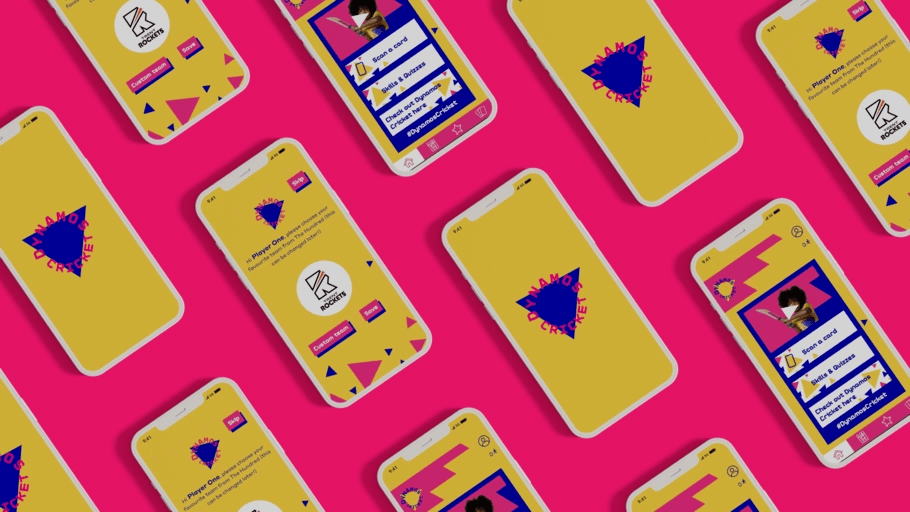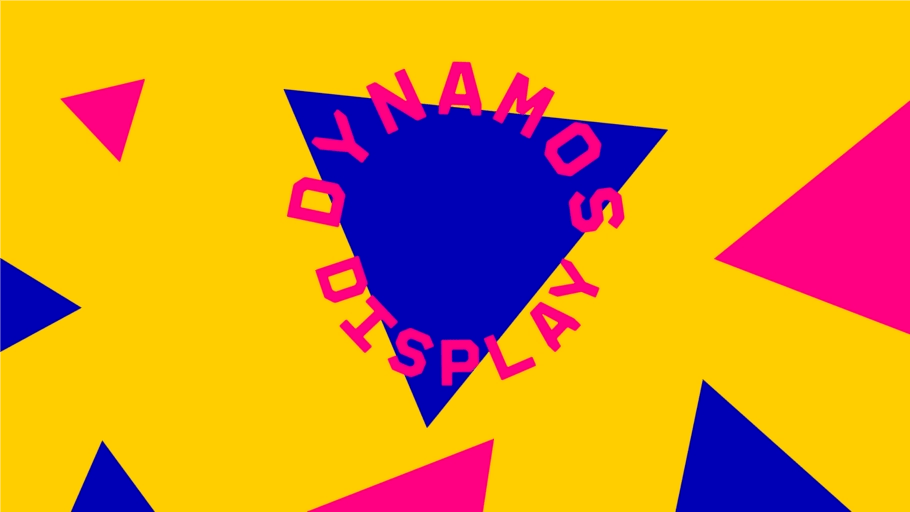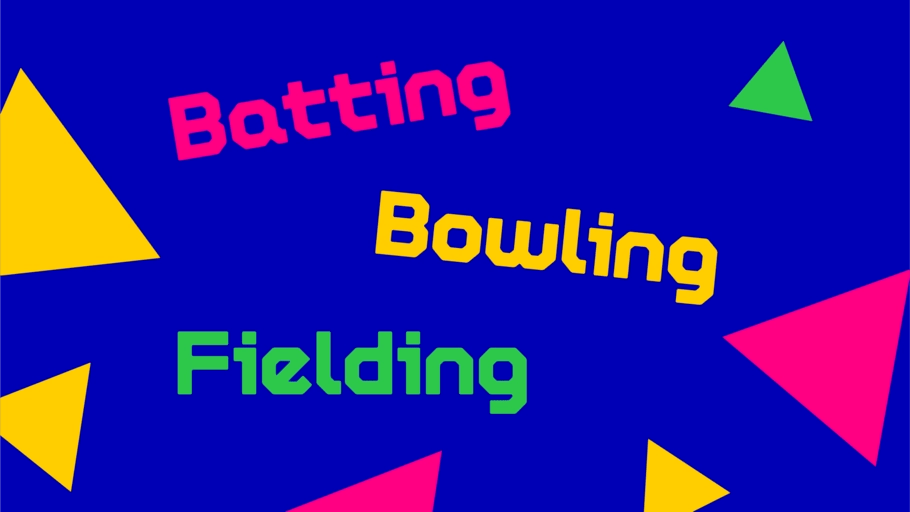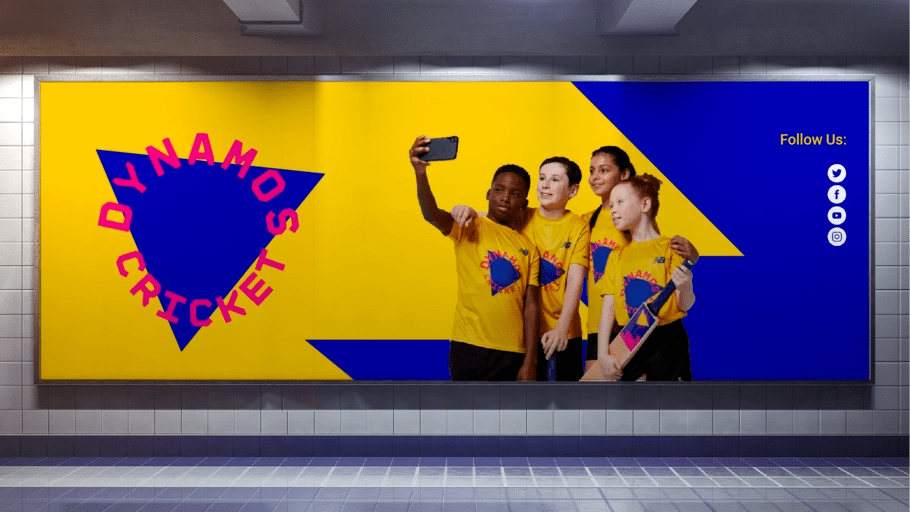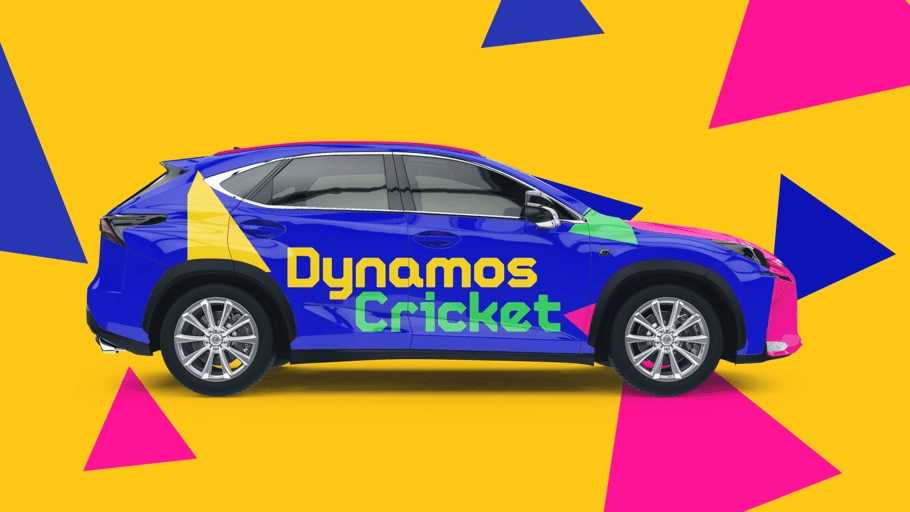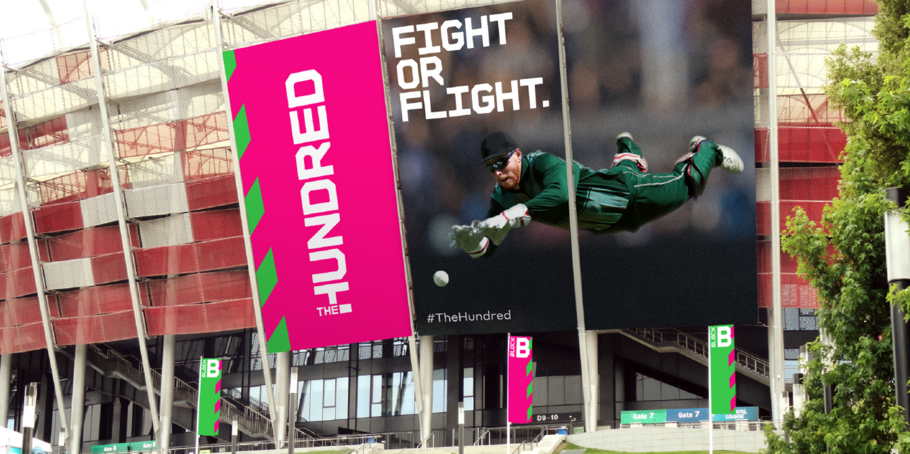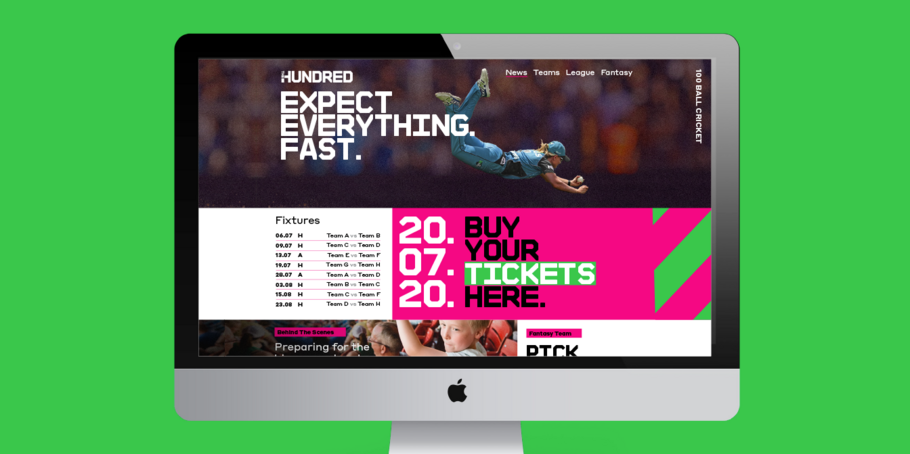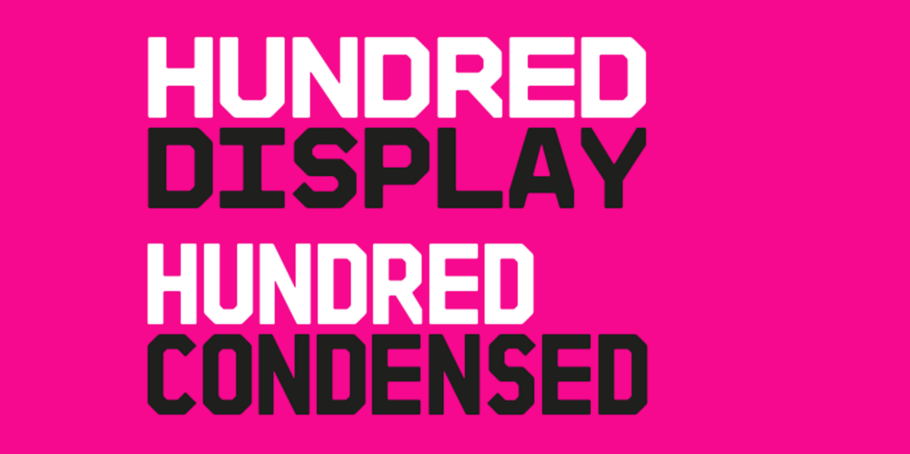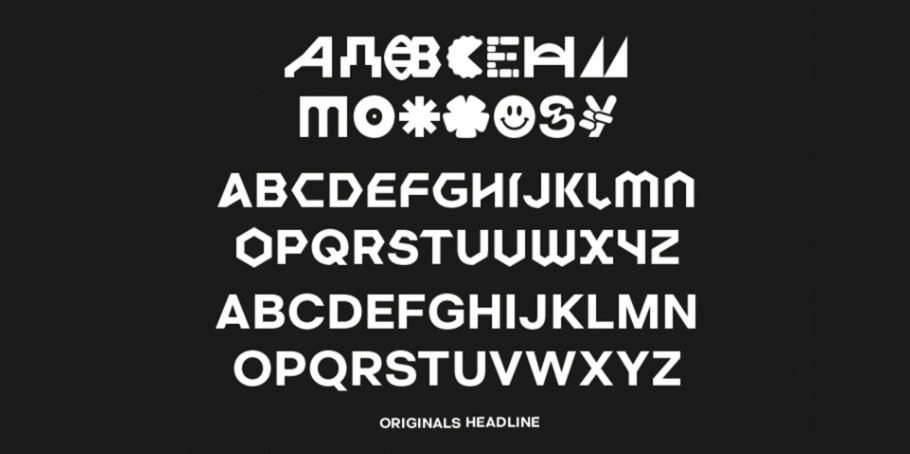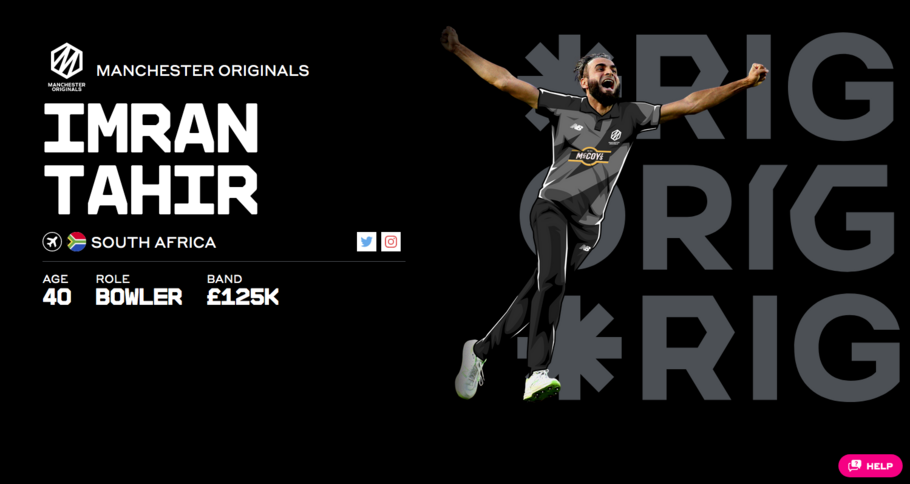
The Hundred - The new brand identity, for the new game.
“ Our aim was to bring a genuinely distinctive tone of voice, one that speaks to a new fanbase and conveys the active, ambitious and daring nature of the Hundred and Dynamos brands. ”
Phil Garnham — Senior Creative Type Director, Monotype Studio.
The England and Wales Cricket Board (ECB) have reimagined Cricket with the introduction of a new competition; ‘The Hundred’. Monotype collaborated with FutureBrand London to create a bold and confident typographic identity aimed at shifting perceptions to attract a wider audience to the game.
The new ‘Hundred’ game format is simple: Eight teams, representing seven cities from around the UK, will compete against each other with 100 balls per team and the team with the most runs wins. The top three teams will compete in the ‘Finals Day’, the matches themselves will be fast paced and full of drama to help cricket reach younger, more diverse audiences with a focus on families.
In early 2018, a small focussed team of designers at FutureBrand London set out to name and create design concepts for the brand identity. As the competitions vibrant colour palette and graphic patterns emerged, it was clear that a strong typographic approach was needed. The fonts would play an important role and needed to stand up and communicate the brands values of fearless energy, optimism, the core idea of revolutionary cricket.
We were asked to help create a distinctive typeface for the brand, the scope of which extended to the players shirts, a junior participation programme called ‘Dynamos’ and the design of a bespoke typeface for the Manchester Originals team.
ECB Hundred — 100 balls. One voice.
FutureBrand’s brief was clear: create a ‘mono-graphic’ headline typeface that can be set tight, to create blocks of stacked headings that ooze brand confidence. FutureBrand had spent a great deal of time researching type and we were in agreement that a distinctly solid, monospaced typeface that could imply the idea of a grid system would deliver a powerful branded voice. FutureBrand’s lively design system demanded a font with an impactful tone that also had to be readable and operate in short headlines. Establishing the correct letter proportions for the fonts wide ranging roles was vital.
Taking inspiration from modular constructed type we created a monospaced, technical feeling font with a clearly defined character width. We created multiple creative options for specific characters such as C, G, K, M and explored ink trap and corner treatments to establish a clear creative direction. We chiselled into the letters and cut them off at the bounding box to create a sense of blocking, some gravitas and solidity. We were also mindful that the font needed to feel warm and family friendly in the spirit of the competitions audience. Warmth was added by short-cutting edges and softening rounded corner shapes.
We explored multiple structures for the figures, of which we had solid and stencil versions for each. We looked at different ways to cut in and stencil, to get the balance right as a whole set, not only as individual letterforms.
Monospaced fonts demand a monospaced ‘tabular’ spacing where every letter works within the same width. However, a bespoke font should very much be a bespoke font. As the Hundred font design went into brand testing we noticed some odd typesetting, some unanticipated white space gaps appearing where they didn’t exist in previous testing. A font’s ability to adapt to brand is important. We reviewed our approach to how we spaced the fonts punctuation, especially for when the fonts were used in mid-sized text e.g longer headlines or strap lines. It was determined a looser proportional approach to spacing the punctuation would work best. Sometimes it’s ok to break the rules.
ECB Hundred Condensed
Once the final ‘Hundred Display’ font was established, our attention quickly turned to how we could adapt the design for the team shirts. The plan was to create a Condensed version of the font, which threw up challenges around readability. Did we maintain the same font weight? Would proportional letterforms read better at distance than monospace letters? Would specific character designs need a redesign to improve legibility?
We reduced the fonts width by 25%, it’s weight by 14% and redrew all of the shapes to maintain a 45° angularity, in keeping with the original design. We then tested the font’s readability as a purely monospaced and proportional design. After much debate we created a ‘hybrid’ version, one which maintained a monospace approach but with redesigned characters such as ‘M’, ‘N’, ‘W’ and ‘4’ which are naturally wider. Once again, breaking ‘the rules’ helped us to improve readability yet maintain brand personality.
“ Working with Monotype on this project was an absolute pleasure. We consistently return to working with the team, not only for their unparalleled expertise and knowledge on fonts, but also for their true understanding of client needs from a bespoke type and the power they bring to a brand. Above and beyond their talent, the team are super responsive and always adaptable, which makes my life a lot easier! ”
Katie Revell – Account Director, FutureBrand.
Manchester Originals.
Dynamos Display.
Dynamos Cricket is a junior participation programme for 8-11 year-olds who are either graduating from the All Stars Cricket programme or are entering the sporting world of cricket for the first time. The brand is built from the idea of energising the game of cricket for a new generation of players, and seeks to bring a confident urban attitude. We created a new typeface for the Dynamos brand, entitled ‘Dynamos Display’. This specific cut of the ECB Hundred font was created with a full lowercase to aid readability and comprehension for younger readers, whilst still maintaining a link back to the core brand. This font is used in short, sharp bursts to add drama to punchy headlines.